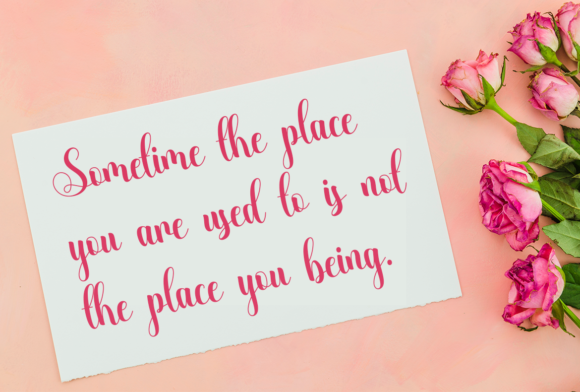
Belyna Font
db-ku.com - Script & Handwritten -- Belyna is a dazzling script font with a lovely atmosphere and spotless form, inspired by timeless classic calligraphy. Not too thin and not too thick, balanced and varied, Belyna was designed to enhance the beauty of your projects.